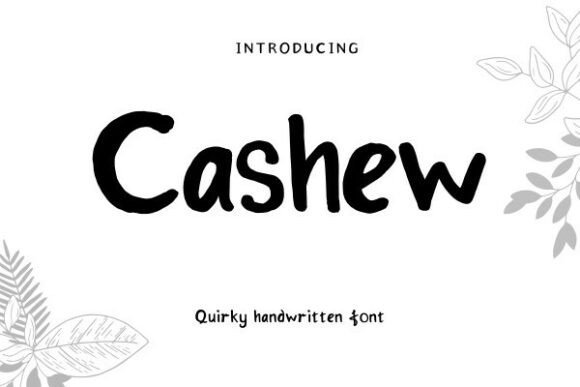
Unleash the Charm of Handcrafted Design with Cashew Font
As a designer, you know the moment when a font just clicks – the perfect combination of style and personality that elevates your project from good to great. It’s that instant when you envision your design in a specific font, and you can almost feel the excitement building up. For me, that moment happened when I stumbled upon the Cashew Font, a handcrafted masterpiece that exudes a natural and authentic charm.
Cashew Font is more than just a font – it’s an extension of your creativity, a tool that helps you bring your unique vision to life. Whether you’re crafting a greeting card, designing a t-shirt, or creating a mockup, this font is the perfect companion. Its one-of-a-kind handwriting aesthetic adds a touch of personality to every design, making it a valuable asset for any designer looking to stand out.
Cashew Font Key Features
- Unique Characteristics: Cashew Font features a distinctive, modern design with a rounded sans-serif aesthetic, making it suitable for a variety of applications, including branding, advertising, and editorial content.
- Font Width and X-Height: Cashew Font has a medium to wide width, with an x-height that is slightly above average, making it easy to read and recognize.
- Kerning and Ligatures: The font includes advanced kerning and ligature support, ensuring that letters and letter combinations are spaced and connected correctly for optimal readability.
Cashew Font Review
I recently had the chance to work with the Cashew font, and I must say it’s a unique addition to any design project. ✨ Here are some things that work well:
- The Cashew font is extremely versatile, suitable for both body text and headlines.
- It has a friendly, approachable feel that makes it perfect for blogs, magazines, or any content that requires a personal touch.
- The font is highly customizable, allowing you to adjust its weight, style, and spacing to fit your design needs.
However, like any font, Cashew has its limitations. ⚠️ Some of these include:
- It may not be the best choice for formal or professional projects, as its playful feel might not be suitable for such contexts.
- The font can be a bit overwhelming when used in large quantities, so it’s essential to use it in moderation.
Overall, I think the Cashew font is a great addition to any designer’s toolkit. It’s easy to use, highly customizable, and can add a unique touch to any project. Just be mindful of its limitations, and you’ll be well on your way to creating stunning designs with this font.
Getting the Most Out of Cashew Font
To get the most out of the Cashew Font, use it in combination with other decorative fonts to create a unique and visually appealing design. Experiment with different font sizes, colors, and styles to find the perfect balance for your project.
The Cashew Font is perfect for creating eye-catching titles, headings, and quotes. Use it in wedding invitations, social media graphics, and marketing materials to add a touch of whimsy and personality.